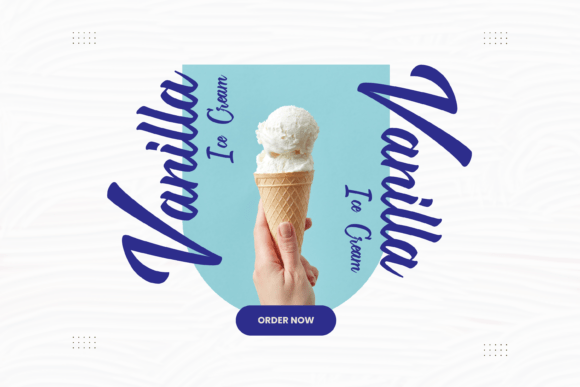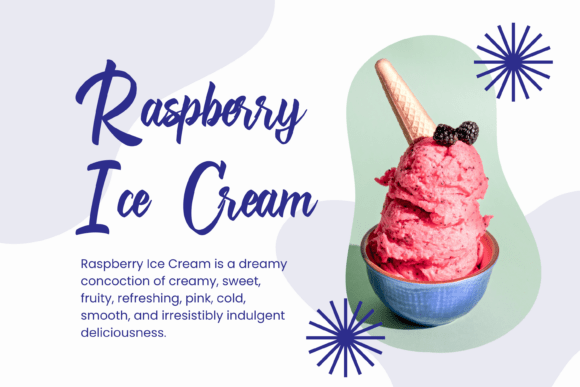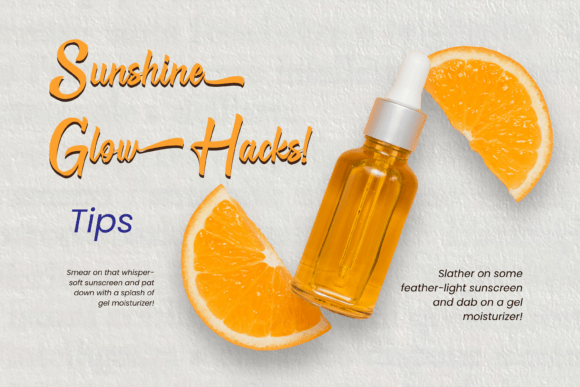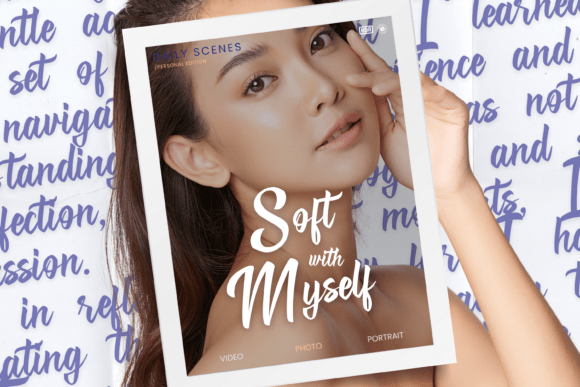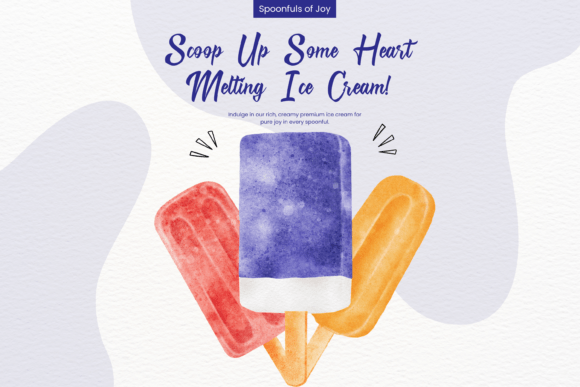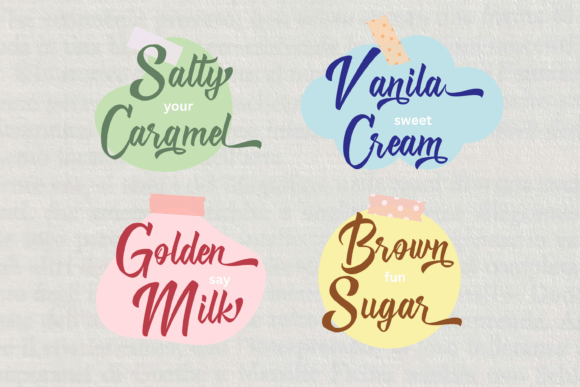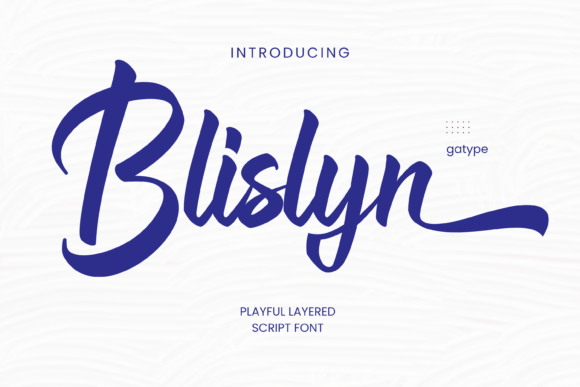
Discover the Whimsical World of Blislyn: A Playful Layered Script Font
Have you ever been in the middle of a design project, and suddenly, you’re stuck on finding the perfect font? I recall a recent experience where a client requested a logo that exuded playfulness and joy. After scouring through numerous font libraries, I stumbled upon Blislyn – a charming layered script font that instantly captured the essence of what I was looking for.
Blislyn is more than just a font; it’s an experience. Designed with smooth curves and lively swashes, this delightful script font offers stackable layers to create vibrant titles, standout logos, and joyful design moments. Whether you’re a designer, crafter, or creative hobbyist, Blislyn is sure to add a spark of fun to your projects.
An Honest Review of Blislyn
What I Love About Blislyn ✨
- ✅ Playful and Versatile: Blislyn’s layered design and swashes make it perfect for creating eye-catching titles and logos.
- ✅ Ease of Use: The font is surprisingly easy to use, even for those who are new to working with layered fonts.
- ✅ Customization Galore: With a wide range of glyphs and stylistic alternates, you can truly make Blislyn your own.
- ✅ Perfect for Branding and Packaging: Blislyn’s playful vibe makes it ideal for creating unique and memorable brand identities.
- ⚠️ Learning Curve for Advanced Features: While the basics of Blislyn are easy to grasp, mastering its advanced features, such as layering and swashes, might take some time.
- ⚠️ Not Suitable for Body Text: Due to its playful and decorative nature, Blislyn is best used for headlines and titles rather than body text.
The Backstory of Blislyn
Blislyn was designed with the intention of creating a font that would bring joy and playfulness to design projects. Inspired by the carefree nature of childhood, Blislyn’s creator aimed to craft a font that would evoke a sense of whimsy and fun. The result is a layered script font that is both versatile and delightful.
| Font Name | Blislyn Font |
| Author | gatype |
| What makes Blislyn unique? | Blislyn’s layered design and swashes make it stand out from other script fonts, offering a high level of customization and versatility. |
| Is Blislyn suitable for body text? | No, Blislyn is best used for headlines and titles due to its playful and decorative nature. |
Blislyn is a delightful addition to any design project, offering a playful and versatile way to add personality to your work. With its ease of use, customization options, and joyful vibe, Blislyn is sure to become a favorite in your font library.